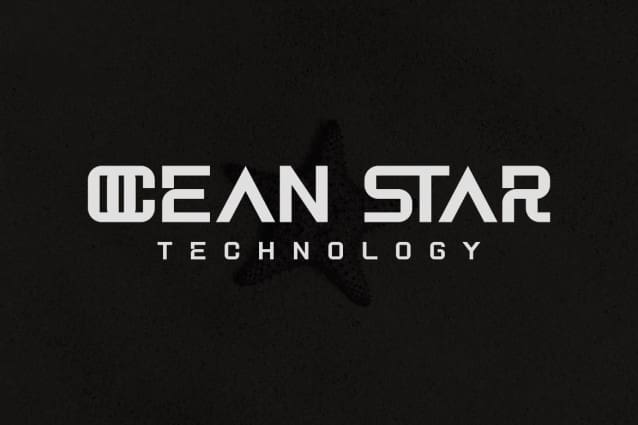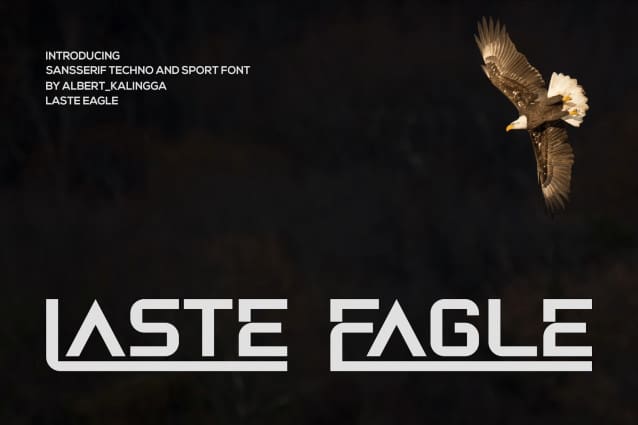
Laste Eagle Font
Laste Eagle Font – Modern Font is a bold and authentic display font. The font is suitable for all branding projects such as Logo, esports, etc. It is exceptional in a wide range of contexts